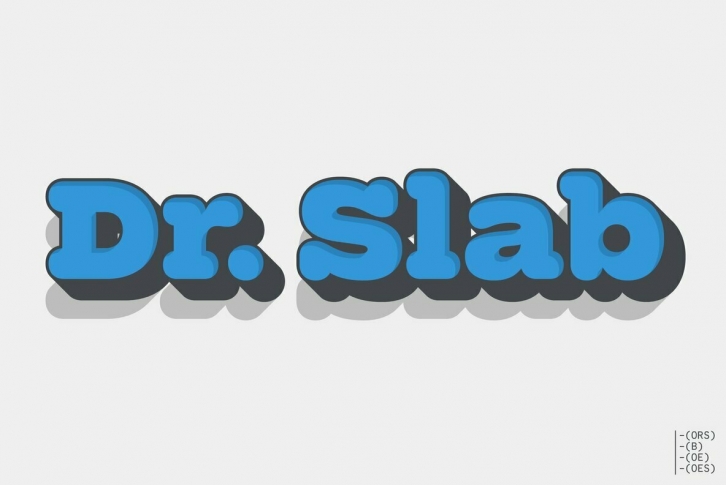
Extraordinary impact and visual conspicuousness.
Dr Slab is a super 3D serif family for posters, logos and all display. The basic idea is not a brand new. Stacking type system have been used since before wood type age.
As you imagined, colored wood type(woodcut), many other engravings and contemporary printer machine print many colors separately with different printing plates for each colors.
Dr Slab uses the same system for 3d effect. Please use Photoshop or Illustrator, or your favorite graphic design apps that can handle layers. Layers are the printing plates of wood type. You should be able to change text color for each layers.
Dr Slab "Base" style is the core of this font family.
You can add effects by using the other styles(Rim, Shadow, Ext).
Dr Slab "Base" style can be used solely.
Rounded slabs add soft, cute and casual impressions to your design.